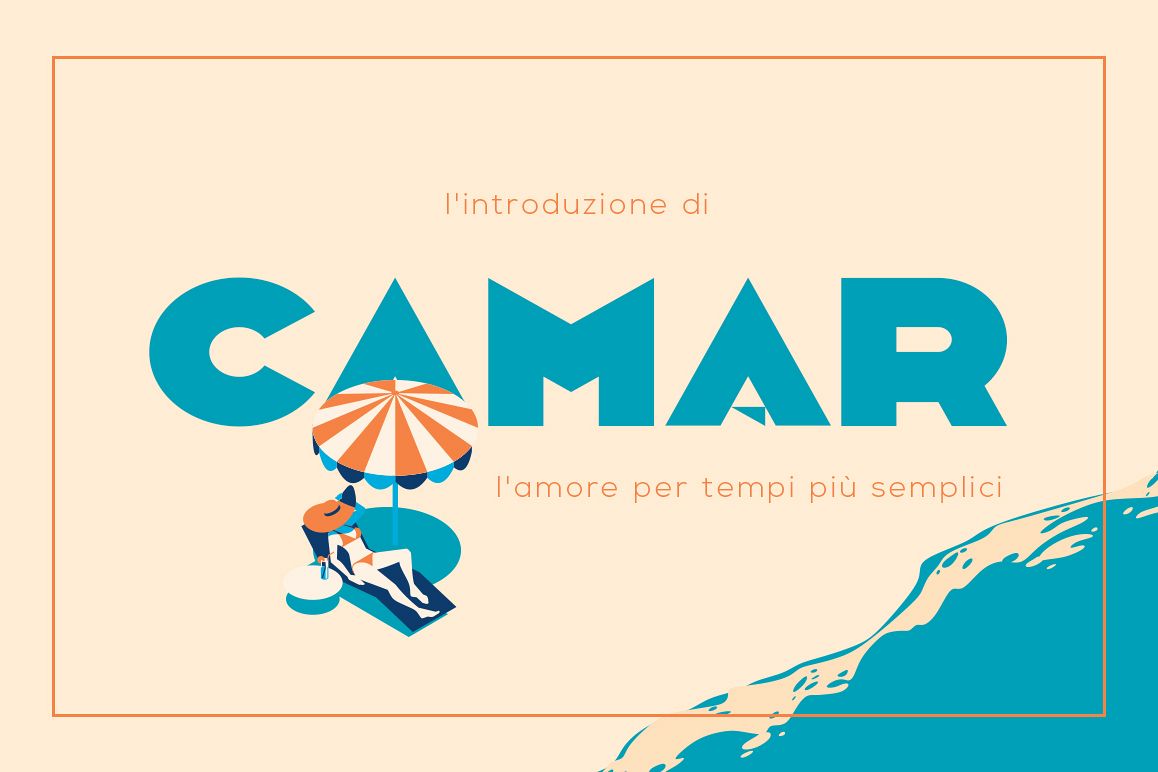
Camar
Camar is an art deco-inspired font, created initially for a set of postcards that needed a more modern feel and consistent calm rhythm beat for reading. From the era of modernization and expansion where anything seemed to be possible when simple meant elegant when form and poise were the norms, we bring to you a unique and timeless period-made font.